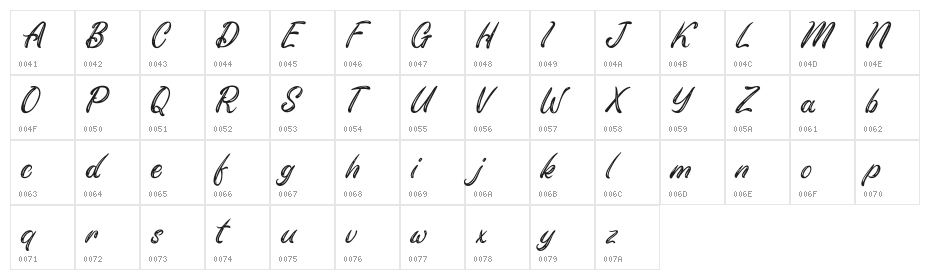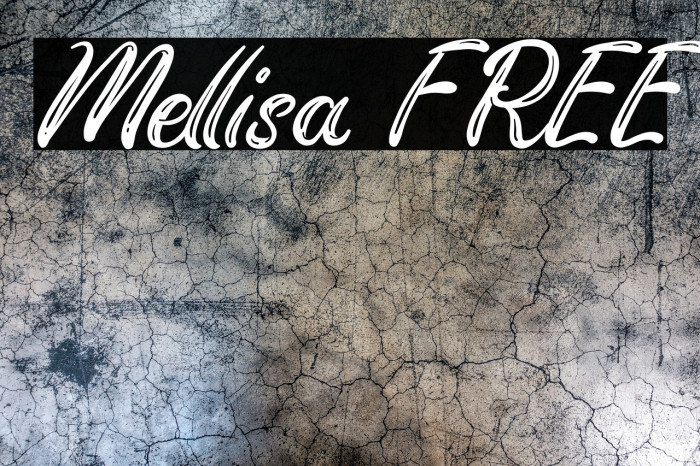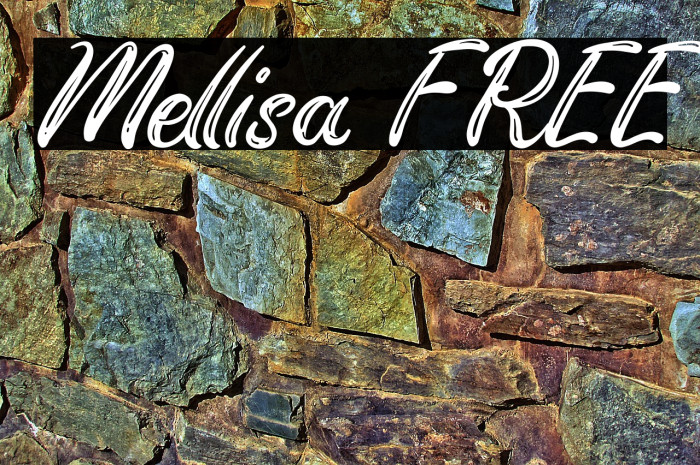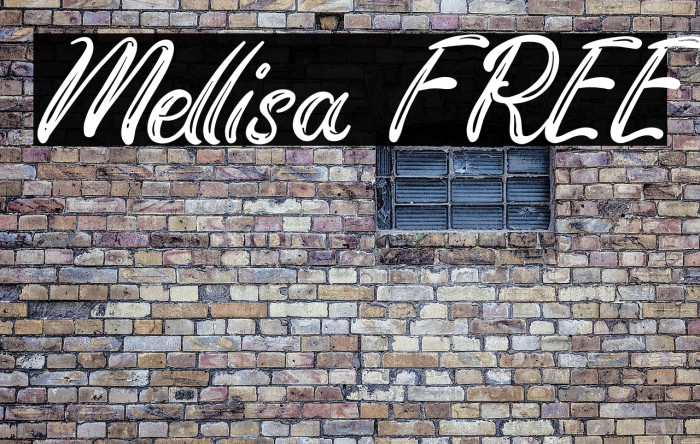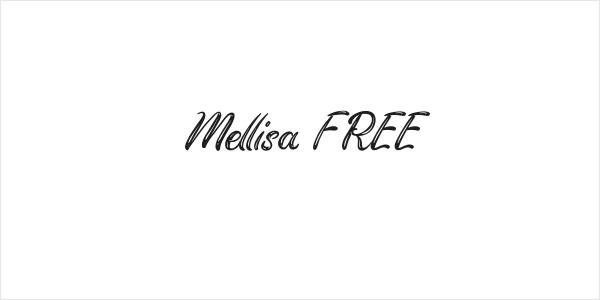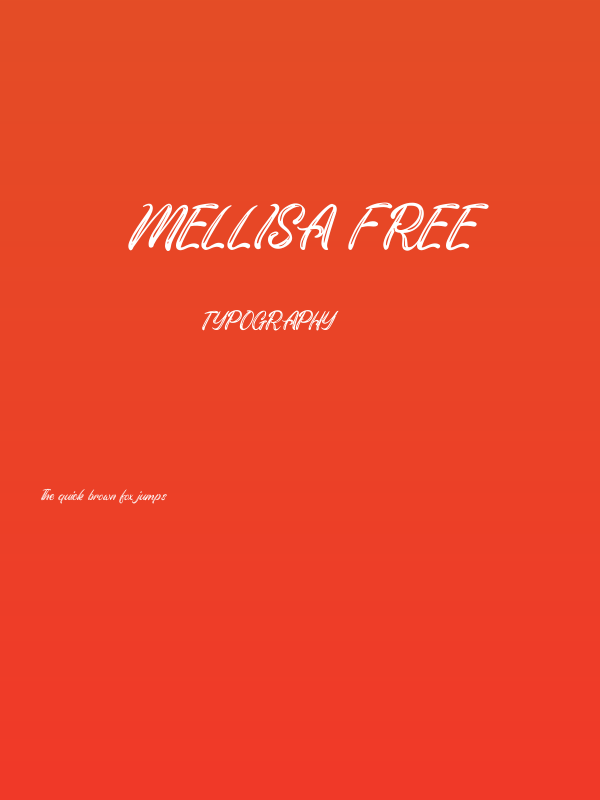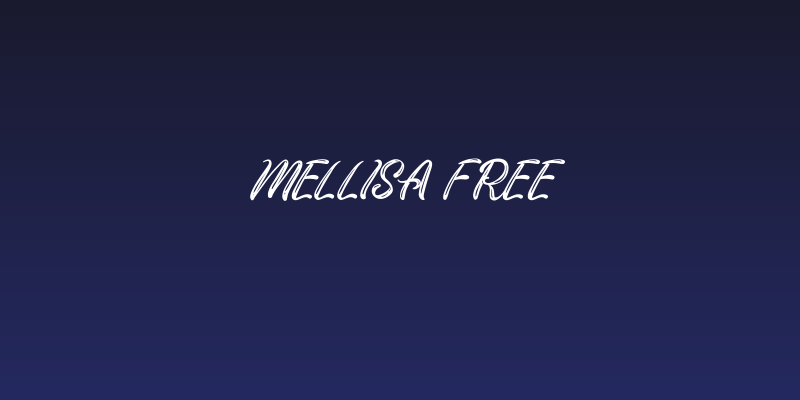
Mellisa FREE Font
Mellisa FREE Description
This font features a dynamic and flowing script style, characterized by its elegant and cursive letterforms. The strokes are smooth and connected, giving it a handwritten appearance that is both stylish and sophisticated. The uppercase letters are bold and prominent, while the lowercase letters maintain a consistent flow, enhancing readability. The font's design is versatile, suitable for various creative projects that require a personal touch. Its artistic flair makes it ideal for invitations, branding, and decorative purposes.
| Proposed Projects | Ideal for wedding invitations, branding, greeting cards, and decorative designs. |